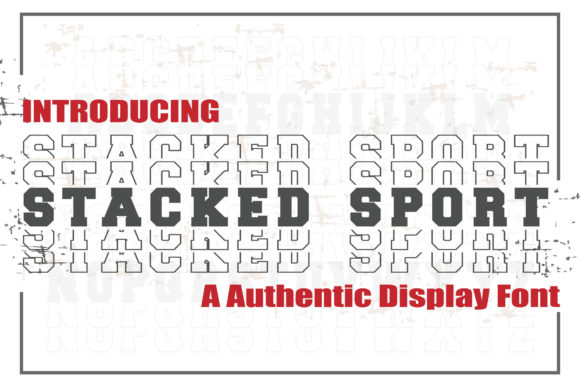
Stacked Sport Font is a unique and bold display font that has been created by the talented KtwoP. This font is perfect for those who want to add a touch of authenticity and style to their designs. It has a cool, edgy feel to it that will make your designs stand out from the crowd.
With its strong and bold letters, Stacked Sport Font is perfect for creating sport or racing-related designs. It is also an excellent choice for any design that needs to convey speed and movement. Whether you are designing a logo, a website, or an advertisement, Stacked Sport Font will elevate your work to the next level.
This font is easy to use and highly versatile. It is suitable for a range of applications, from posters and flyers to social media graphics and product packaging. With Stacked Sport Font, you can create designs that are both eye-catching and memorable.
In conclusion, if you are looking for a font that will add character and authenticity to your designs, Stacked Sport Font is the perfect choice. Its bold, edgy style and unique features make it an excellent option for anyone who wants to create designs that stand out. Download Stacked Sport Font today and take your designs to the next level!